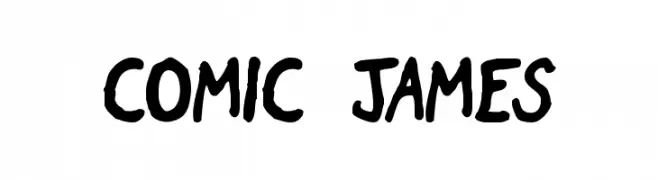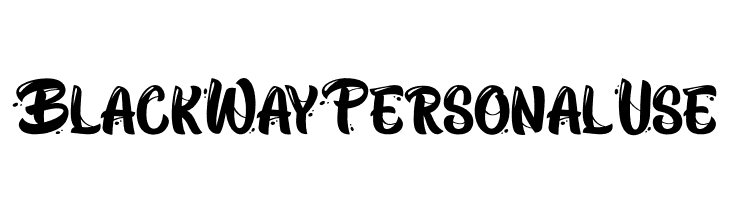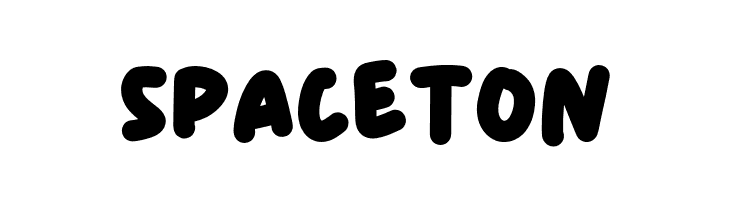
A playful, cloud-like font with bubbly, outlined letterforms and quirky cutouts.
A modern, bold sans-serif font with clean lines and excellent legibility.
A bold, oblique, monospaced font with a modern and dynamic style.
A bold, energetic handwritten font with fluid strokes and a personal touch.
A bold, classic blackletter-style font with intricate detailing and strong vertical emphasis.
A bold, playful font with thick, rounded strokes and a cartoonish style.
A bold, modern sans-serif font with strong geometric influences.